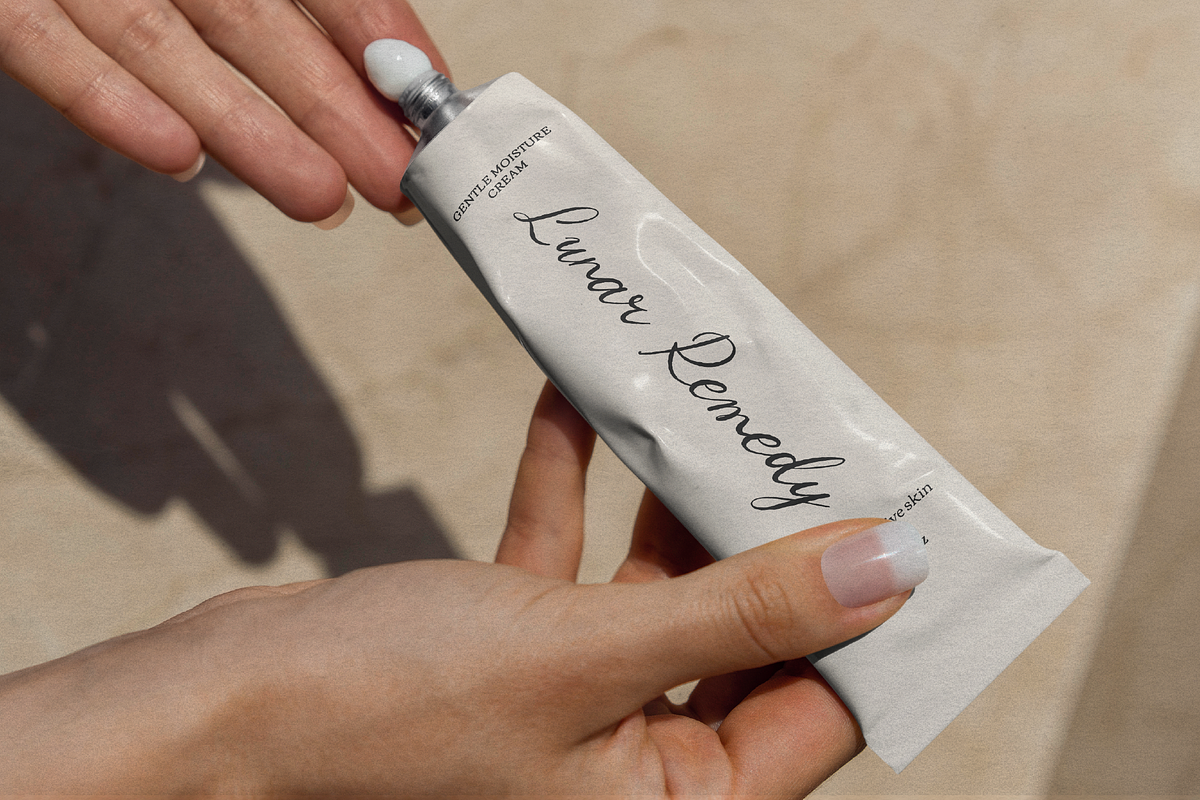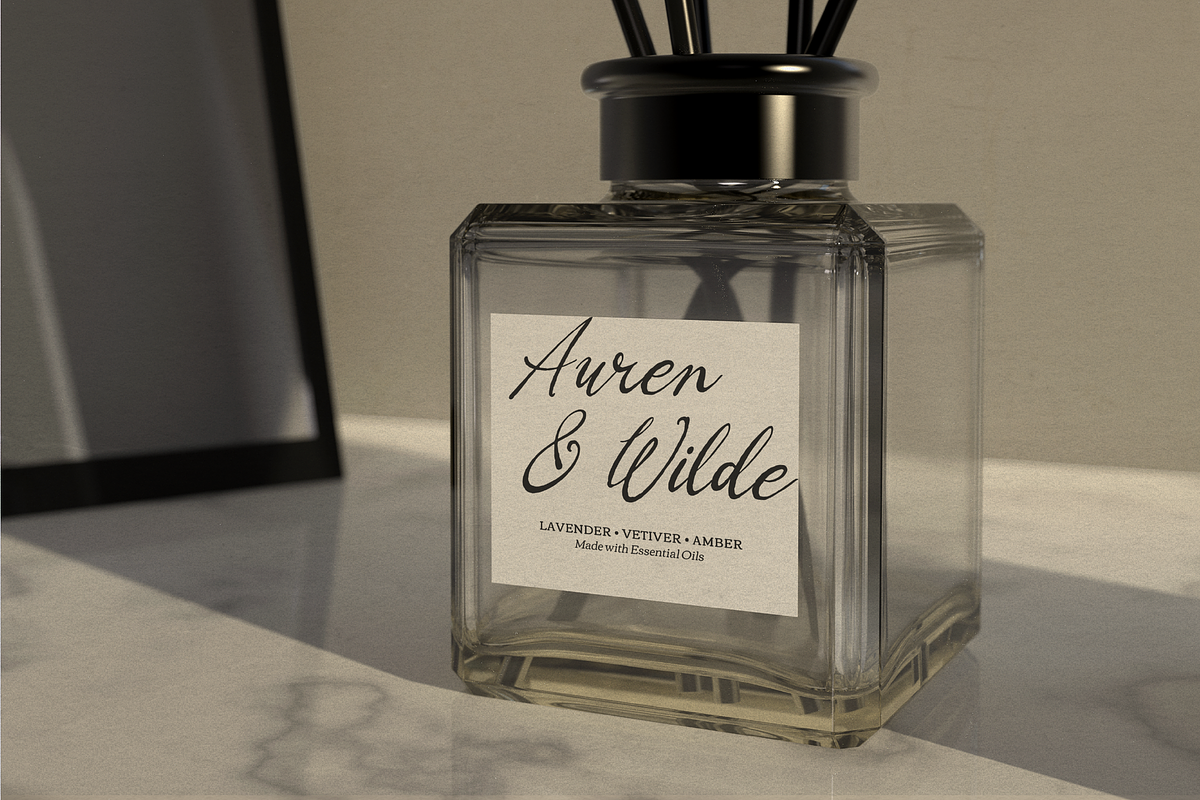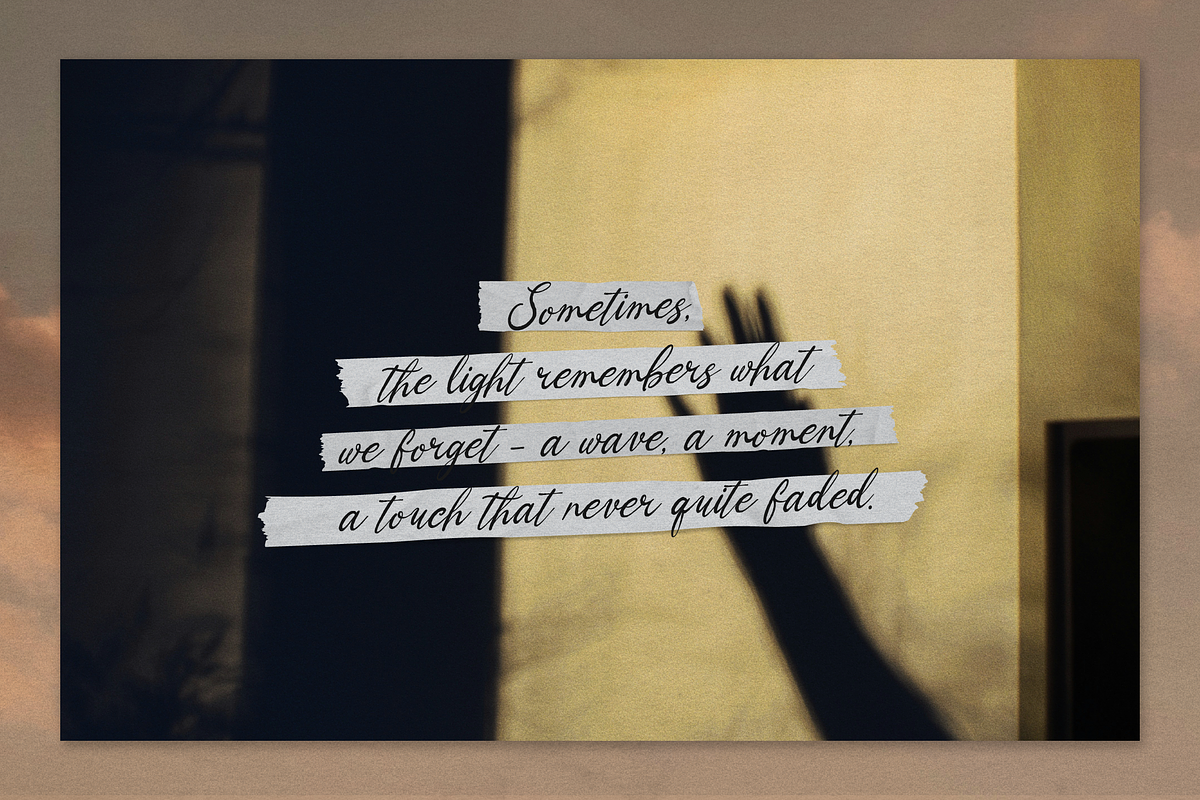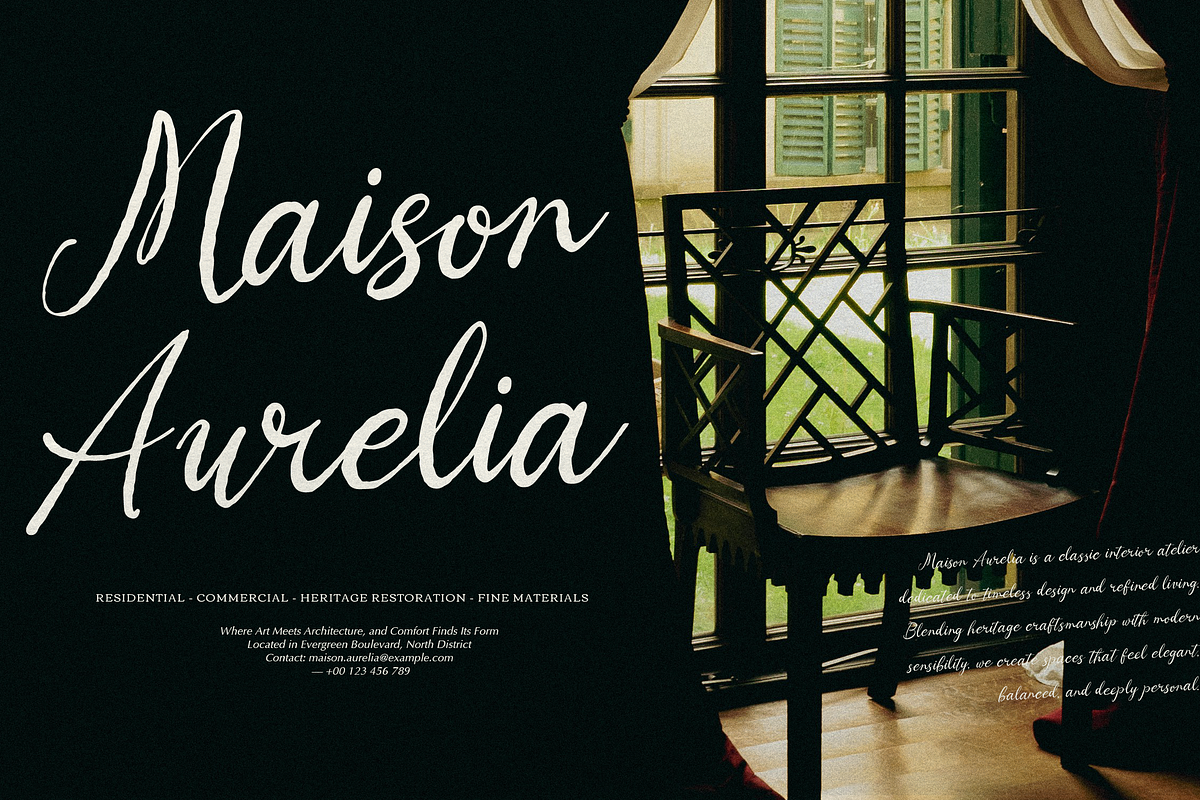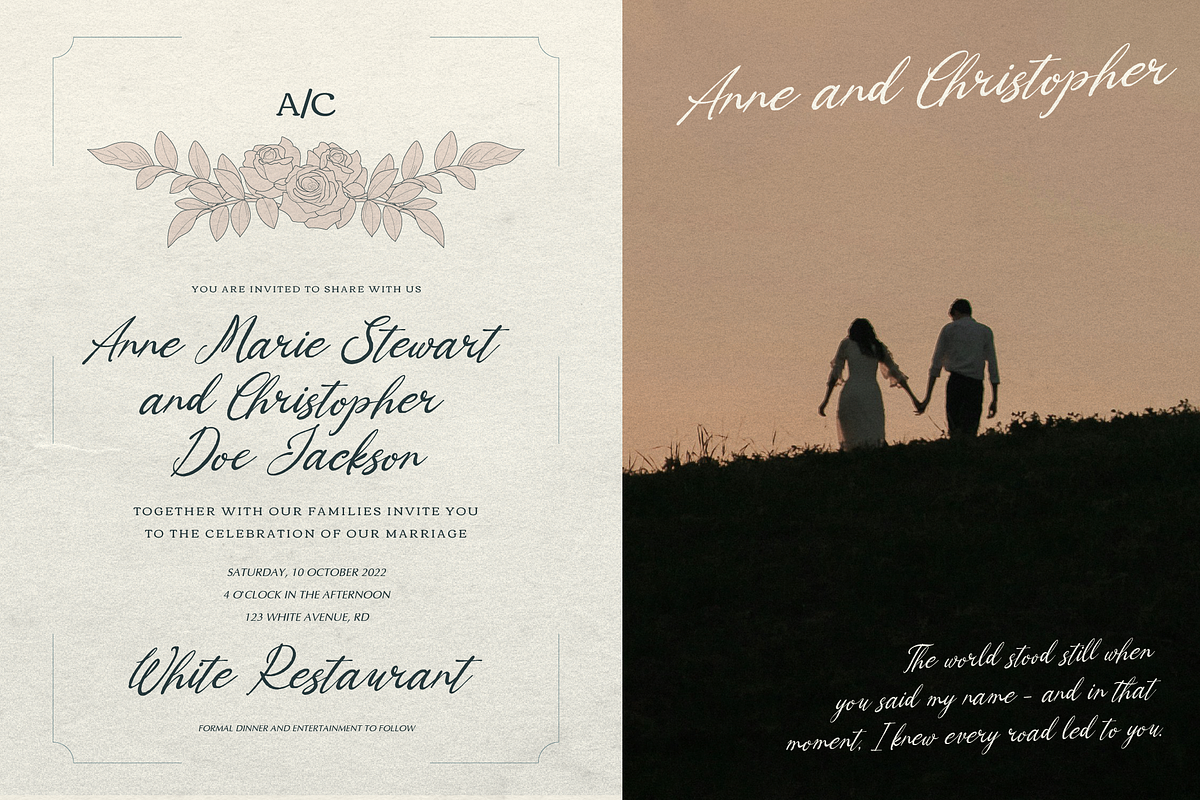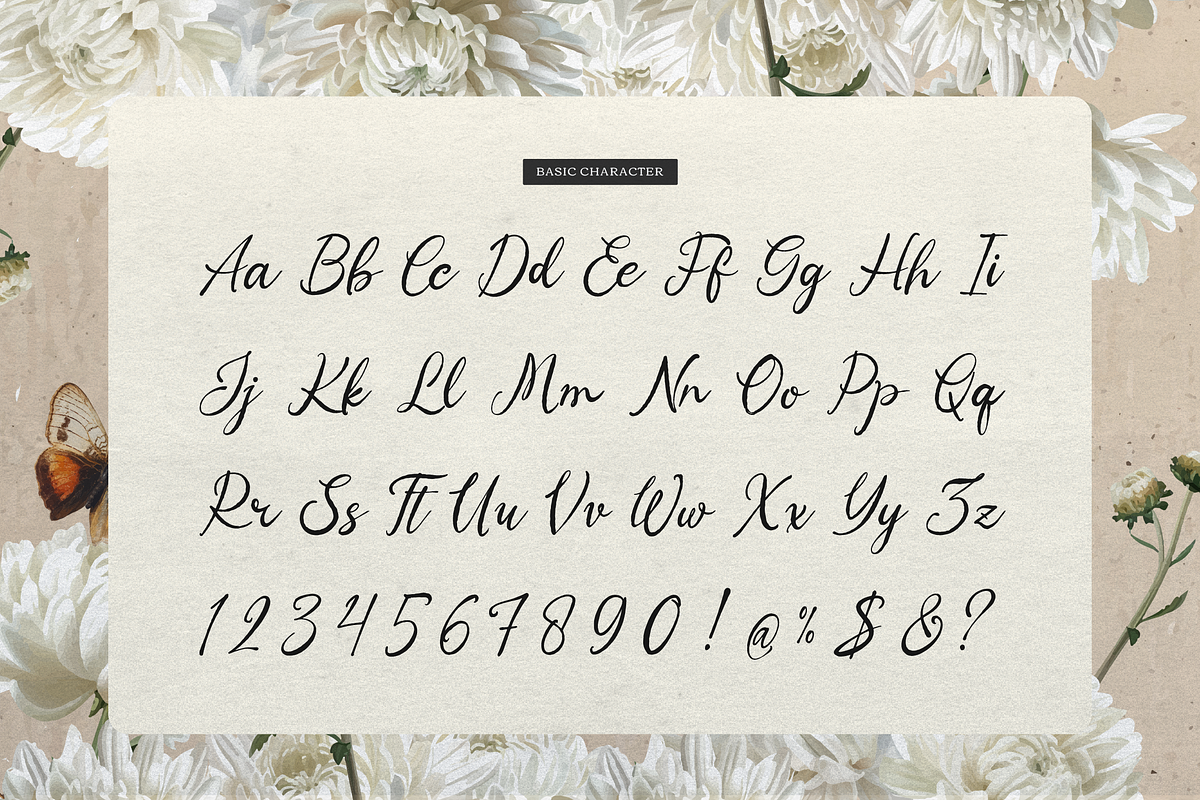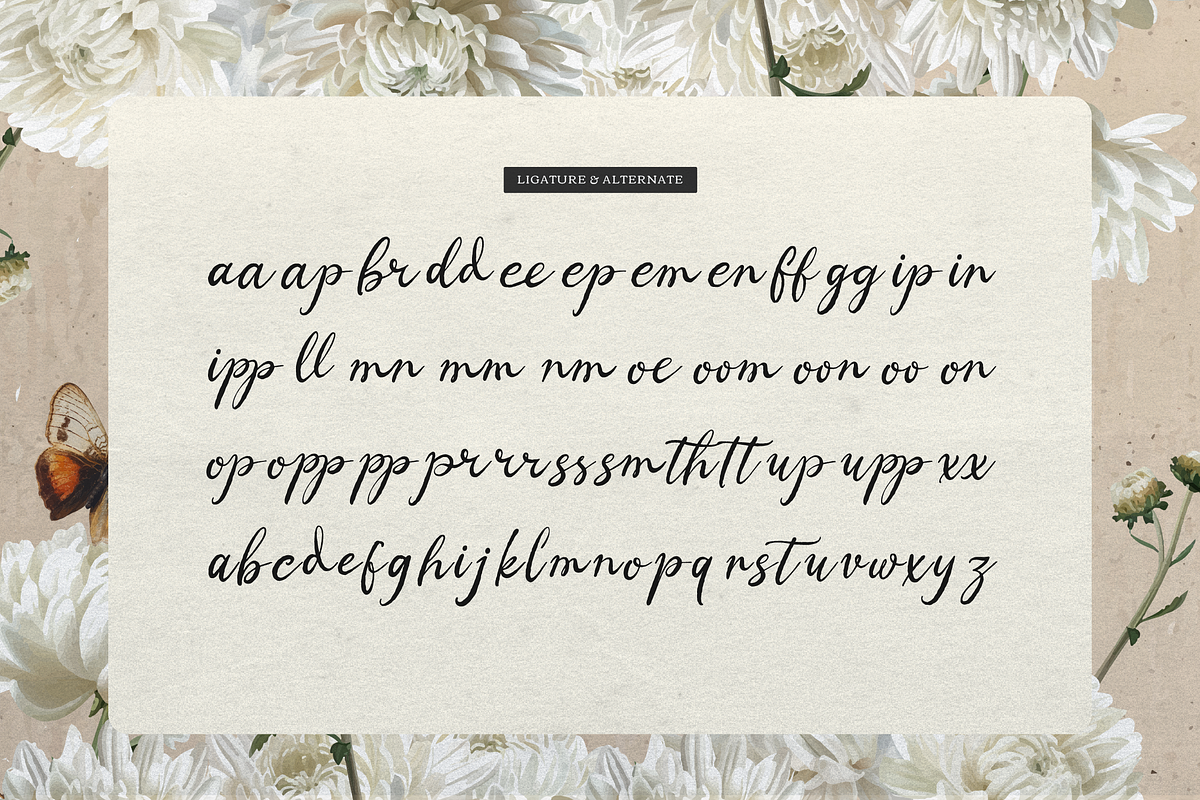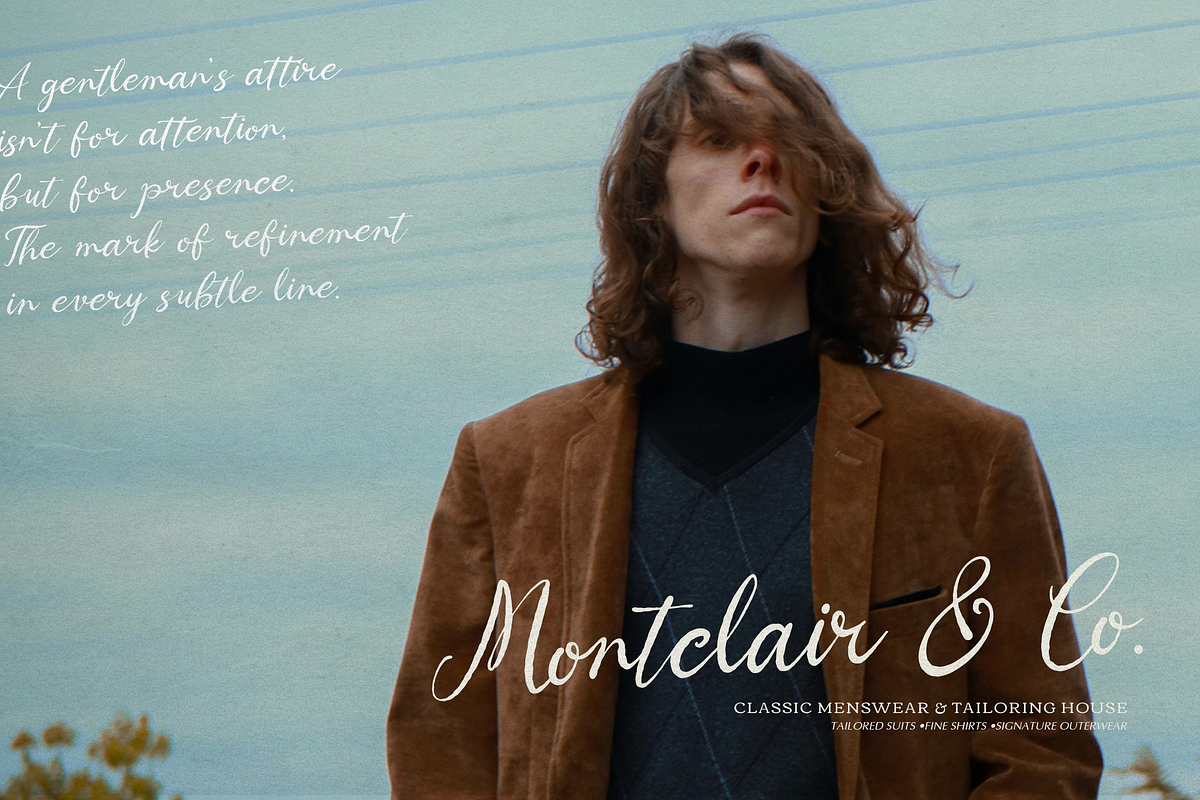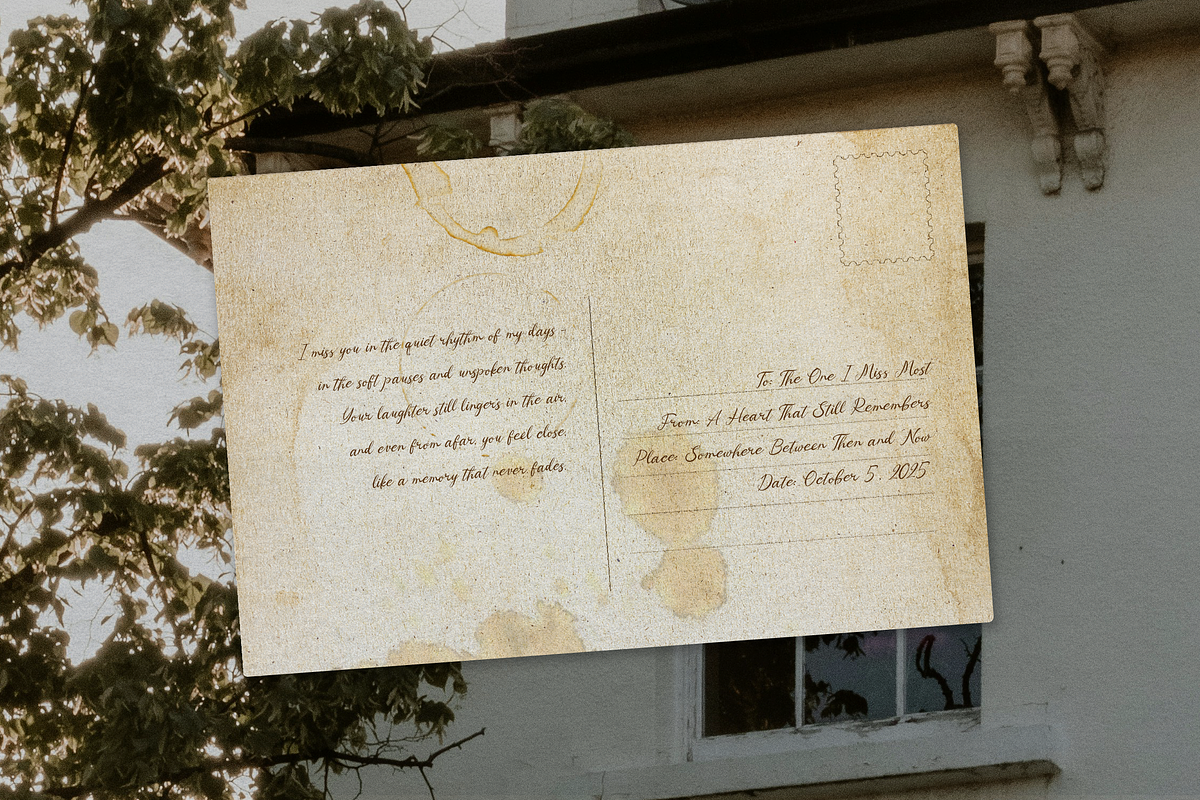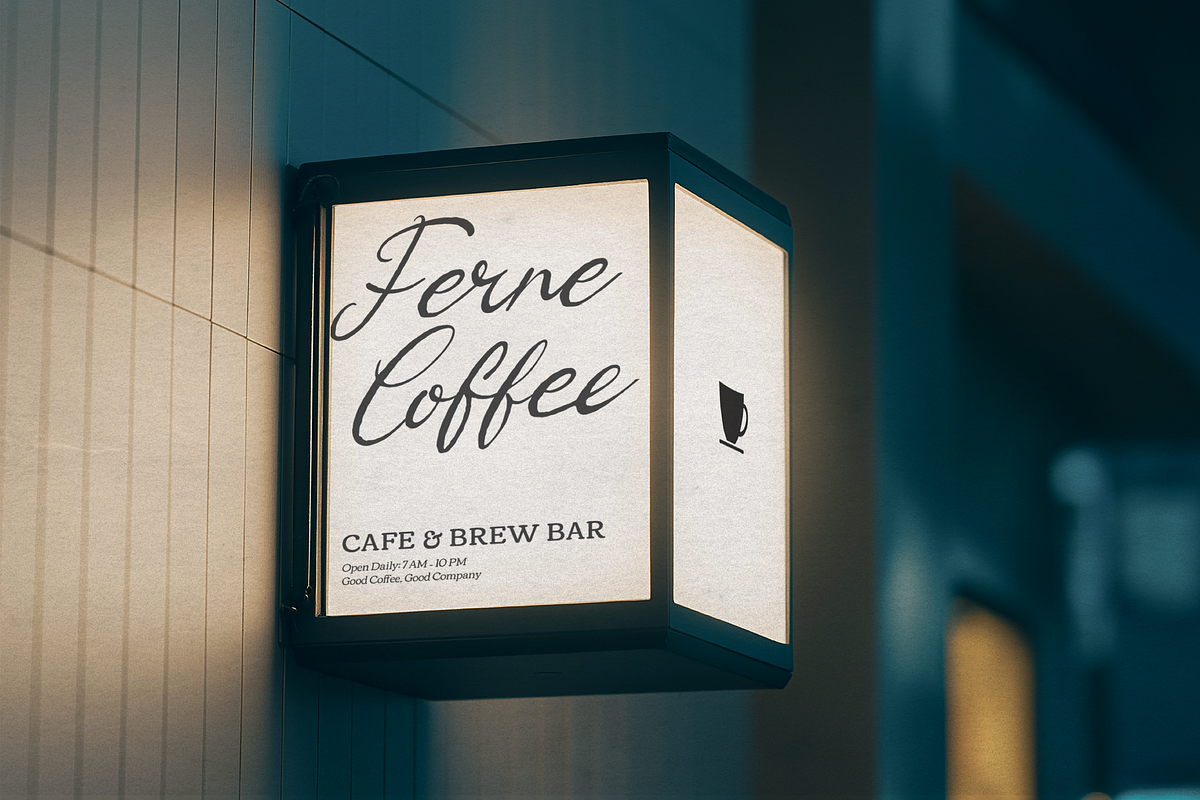
Mercyst Archangell Handwritten
Mercyst Archangell | Vintage Handwritten, from Gracetypestudio, suitable for any projects such as: logos, branding projects, homeware designs, product packaging, mugs, quotes, posters, shopping bags, t-shirts, book covers, name card, invitation cards, greeting cards, label, photography, watermark, special events, and all your other lovely projects that need a Vintage taste.